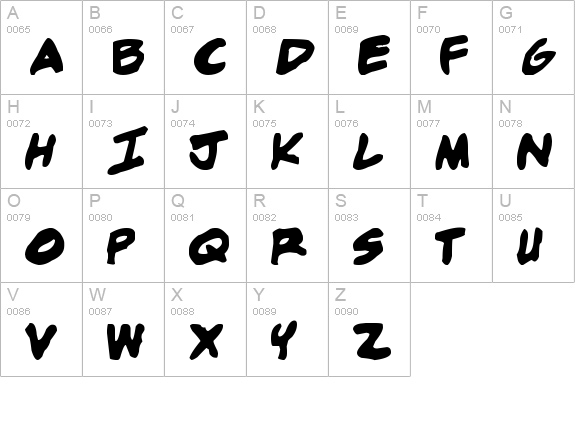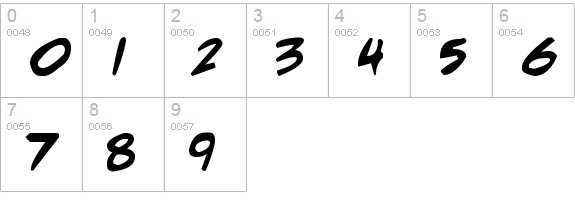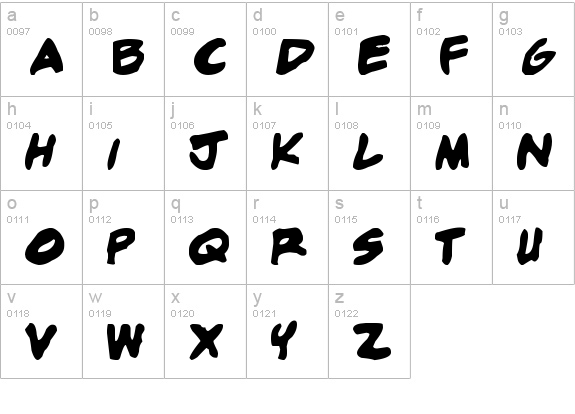
adam warren 0.2 Bold Font Details
Adam Warren 0.2 is a stunning and versatile display font that is perfect for a wide range of design projects. With its bold and distinctive appearance, this font is sure to make a statement and capture the attention of your audience. Whether you're creating a logo, poster, or any other design, Adam Warren 0.2 will add a touch of modern elegance to your work. The best part? Adam Warren 0.2 is available for free download at FontsMarket.com. This means you can easily access this beautiful font and start using it in your projects without any cost. Don't miss out on the opportunity to enhance your designs with the unique style of Adam Warren 0.2. Download it now and elevate your creative work to the next level.